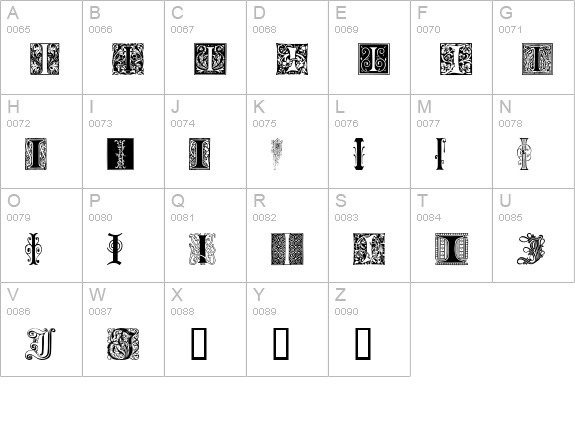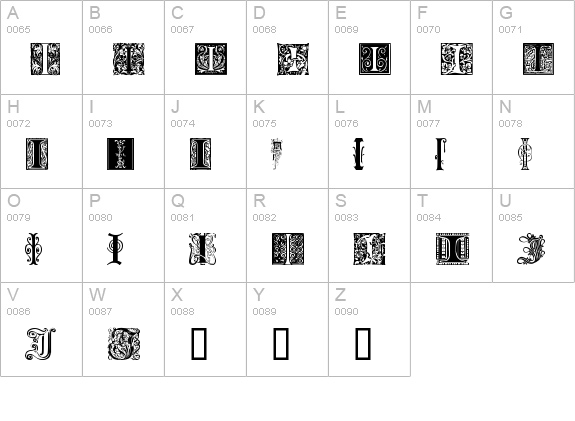
Ornamental Initials I font is a stunning display typeface that exudes elegance and sophistication. With its intricate and decorative design, this font is perfect for adding a touch of luxury to your projects. The ornate initials make a bold statement and can instantly elevate any design. Whether you are working on invitations, posters, or branding materials, Ornamental Initials I font is sure to make a lasting impression. The best part is that this exquisite font is available for free download at FontsMarket.com. You can easily access this beautiful typeface and incorporate it into your creative endeavors without any cost. Don't miss out on the opportunity to enhance your designs with the timeless beauty of Ornamental Initials I font. Download it now and let your creativity shine!